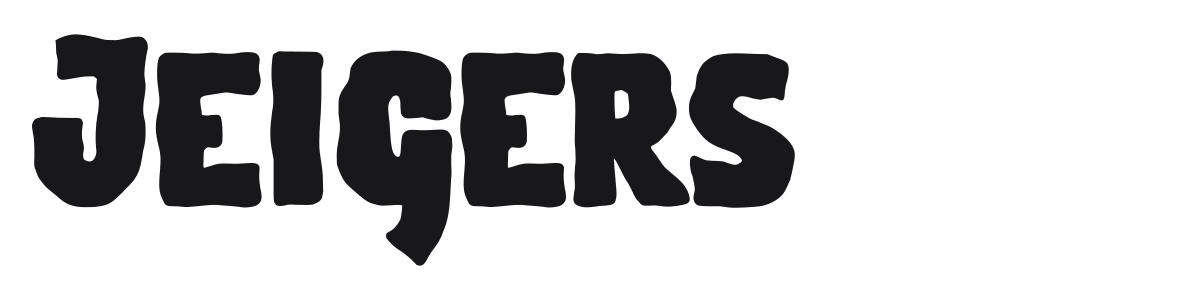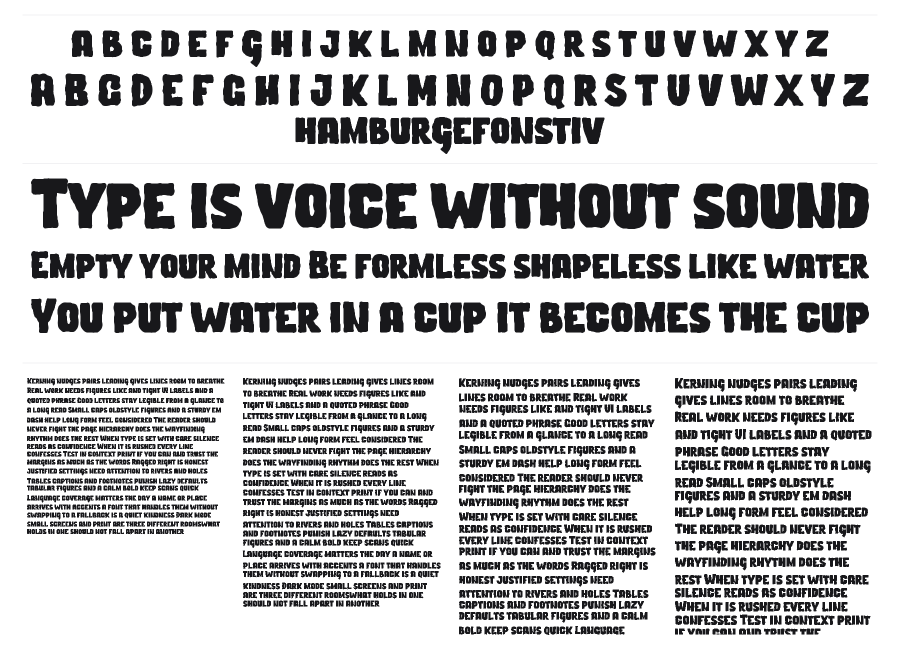
Jeigers
Jeigers is a heavy display font with thick, blocky characters and deliberately roughened, eroded edges. The organic texture across every stroke gives it a hand-carved feel that sits naturally in horror, metal, and underground contexts. It commands attention at large sizes and reads instantly as something with edge.